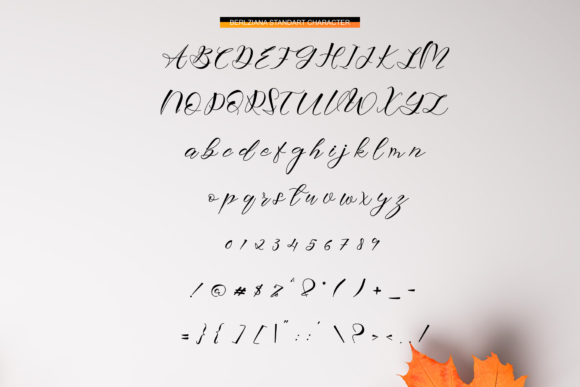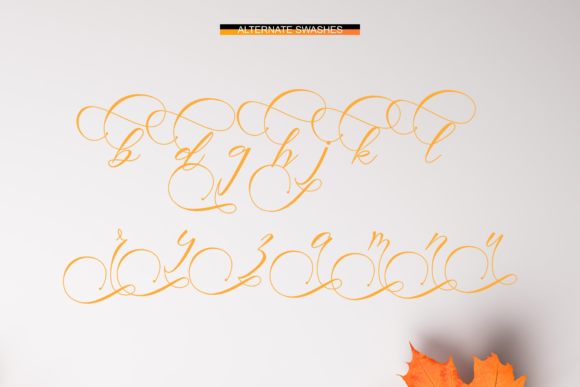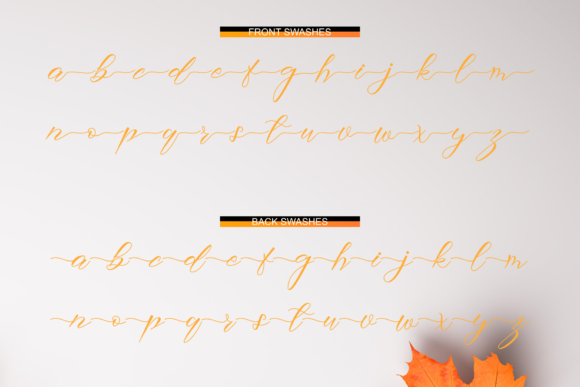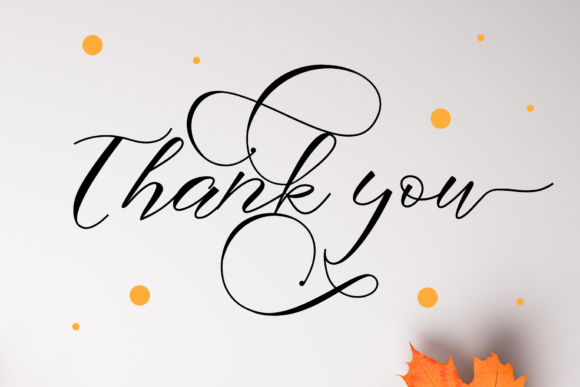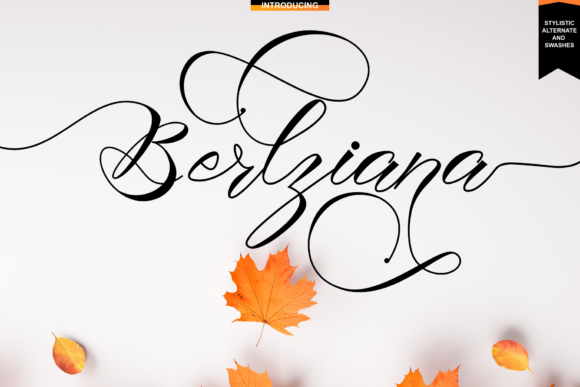
The Berlziana Font: A Romantic and Elegant Addition to Your Design Projects
Have you ever been working on a design project, and suddenly, you’re stuck on finding the perfect font? I recall a recent experience where I was tasked with creating a luxurious brand identity for a high-end client. The brief required a font that exuded elegance, sophistication, and a touch of romance. After scouring through numerous font libraries, I stumbled upon the Berlziana font, which instantly captured my attention. In this article, I’ll share my experience with Berlziana, its features, and how to make the most of this beautiful handwritten font.
A Personal Review of Berlziana
• ✨ The romantic and sweet handwritten style of Berlziana adds a touch of luxury to any project.
• ✅ The characters dance along the baseline, creating a sense of movement and fluidity.
• 💫 The font is PUA encoded, making it easy to access all glyphs and swashes.
• 🎨 The elegant and refined aesthetic of Berlziana makes it perfect for high-end branding, wedding designs, and luxury packaging.
While Berlziana is an exceptional font, there are a few minor limitations to consider:
• ⚠️ Some users might find the font’s elegance and refinement too ornate for certain projects.
• 🤔 The font’s handwritten nature can make it challenging to use in very small sizes or for body text.
The Backstory of Berlziana
Berlziana was designed with the intention of creating a luxurious and elegant handwritten font. The font’s creator aimed to craft a typeface that would evoke a sense of romance and sophistication, perfect for high-end branding and luxury designs. While the exact story behind Berlziana’s creation is unknown, it’s clear that the font was designed with love and attention to detail.
Q: What is PUA encoding, and how does it benefit Berlziana?
PUA (Private Use Area) encoding allows font creators to include additional glyphs and characters that aren’t part of the standard Unicode character set. In the case of Berlziana, PUA encoding enables easy access to the font’s glyphs and swashes, making it more versatile and user-friendly.
Q: Is Berlziana suitable for body text or small font sizes?
While Berlziana is an elegant and refined font, its handwritten nature can make it challenging to use in very small sizes or for body text. It’s best suited for headlines, titles, or short paragraphs where its beauty can shine.